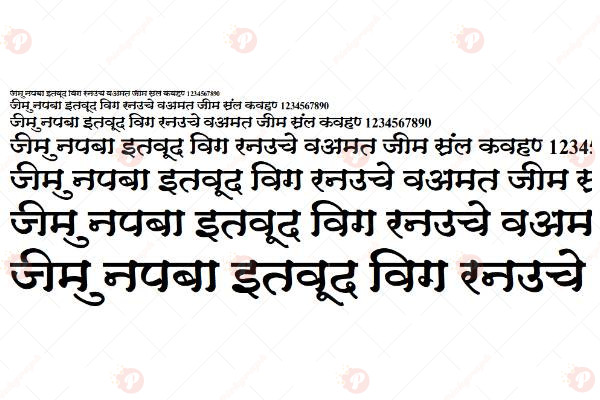
The Abbasi Font is an elegant and stylish typeface, perfect for headlines, posters, logos, branding, social media graphics, and display typography. Its smooth lines and sophisticated design bring a professional touch to every project.
Ideal for digital and print designs, Abbasi enhances your creative work with elegance and readability, making it perfect for branding and artistic projects.
Style: Elegant / Stylish / Display Typeface
Perfect for: Headlines, Posters, Logos, Branding, Social Media & Display Typography
| Optimum Size | Large (Display / Poster) |